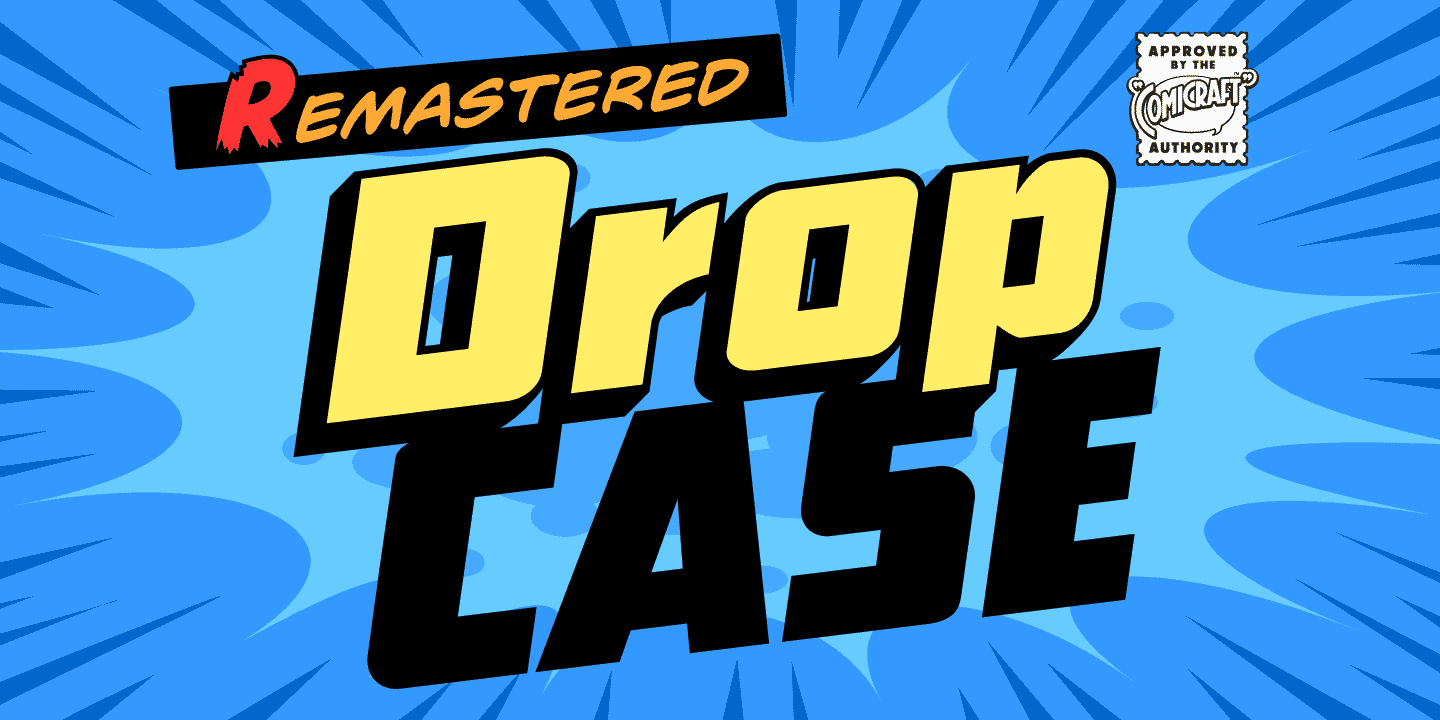
Drop Case Font is perfect for urban streetwear branding, hip-hop album covers, graffiti-inspired designs, youth-oriented marketing campaigns, skateboard graphics, street art projects, music festival posters, nightclub promotions, gaming logos, social media graphics, underground magazine layouts, and contemporary art installations. This bold typeface brings authentic street culture aesthetics to any design project requiring edgy, modern appeal.
What makes Drop Case Font so exciting is its unique blend of urban sophistication and raw street energy that captures the essence of contemporary street culture. The font features distinctive letterforms with carefully designed drop shadows and dimensional effects that create visual depth and impact. Its bold, confident character makes statements while maintaining excellent readability, and the authentic street-inspired styling resonates perfectly with younger demographics and urban audiences seeking genuine cultural connection.
The Drop Case Font family includes multiple style variations with different shadow treatments, outline versions, and solid fills, providing designers with versatile options for creating dynamic typographic compositions. Each variant maintains the original's street-credible character while offering flexibility for various design applications and visual hierarchy needs.
Whether you're designing streetwear brands, creating music promotional materials, or developing youth-focused advertising campaigns, Drop Case Font Free Download delivers authentic urban typography that connects with contemporary street culture. This remarkable typeface combines street credibility with design sophistication, making it an essential tool for projects targeting urban markets and youth demographics seeking genuine cultural authenticity and modern visual impact.